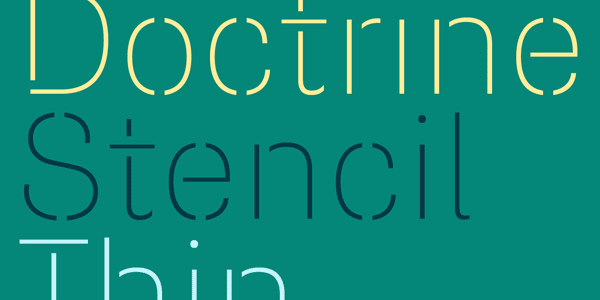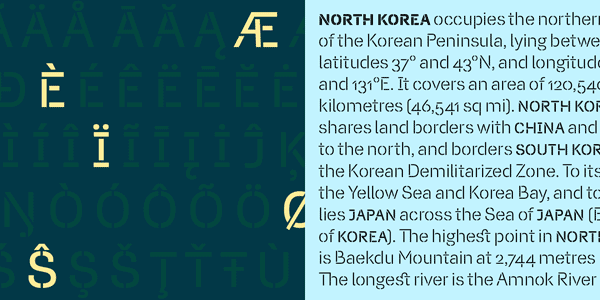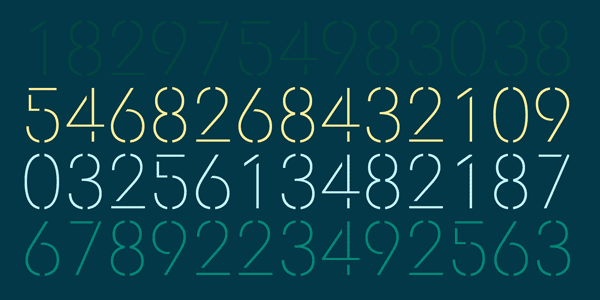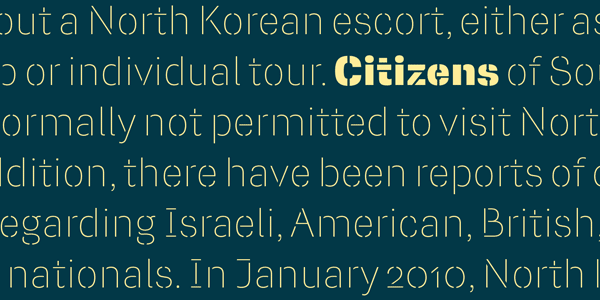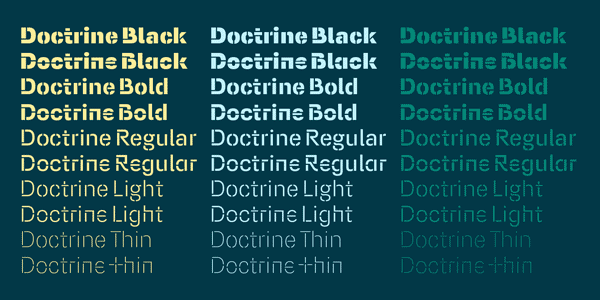
Doctrine Stencil – Font Family.
The Doctrine Stencil type family was designed by Jonathan Abbott, Jonathan Barnbrook, Julián Moncada (Font Publisher: Virus). This display stencil typeface is the companion of the Doctrine font. The typeface is inspired by twentieth-century neo-grotesque, humanist, and geometric font styles. The type family consists of 5 weights from Thin to Black. Doctrine Stencil includes numerous ligatures and alternate characters. The simple and modern typeface with its open areas works great as display typeface for a variety of designs and layouts.